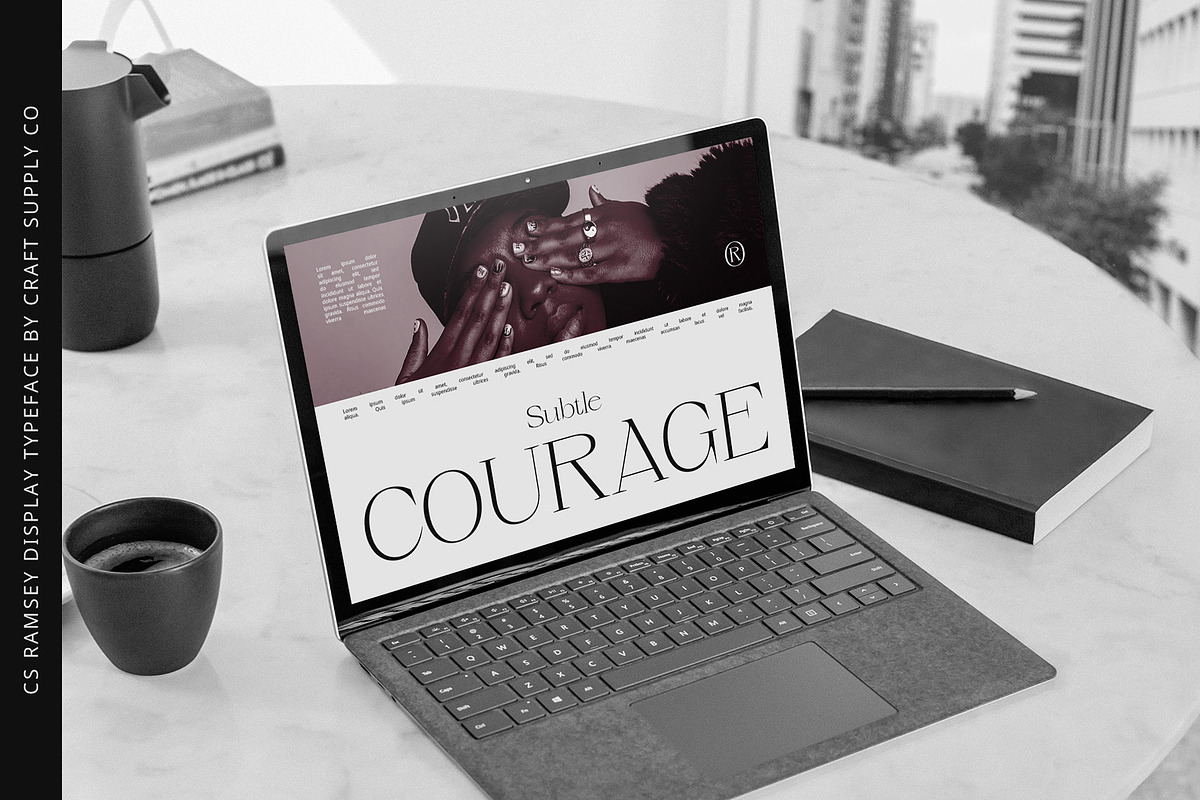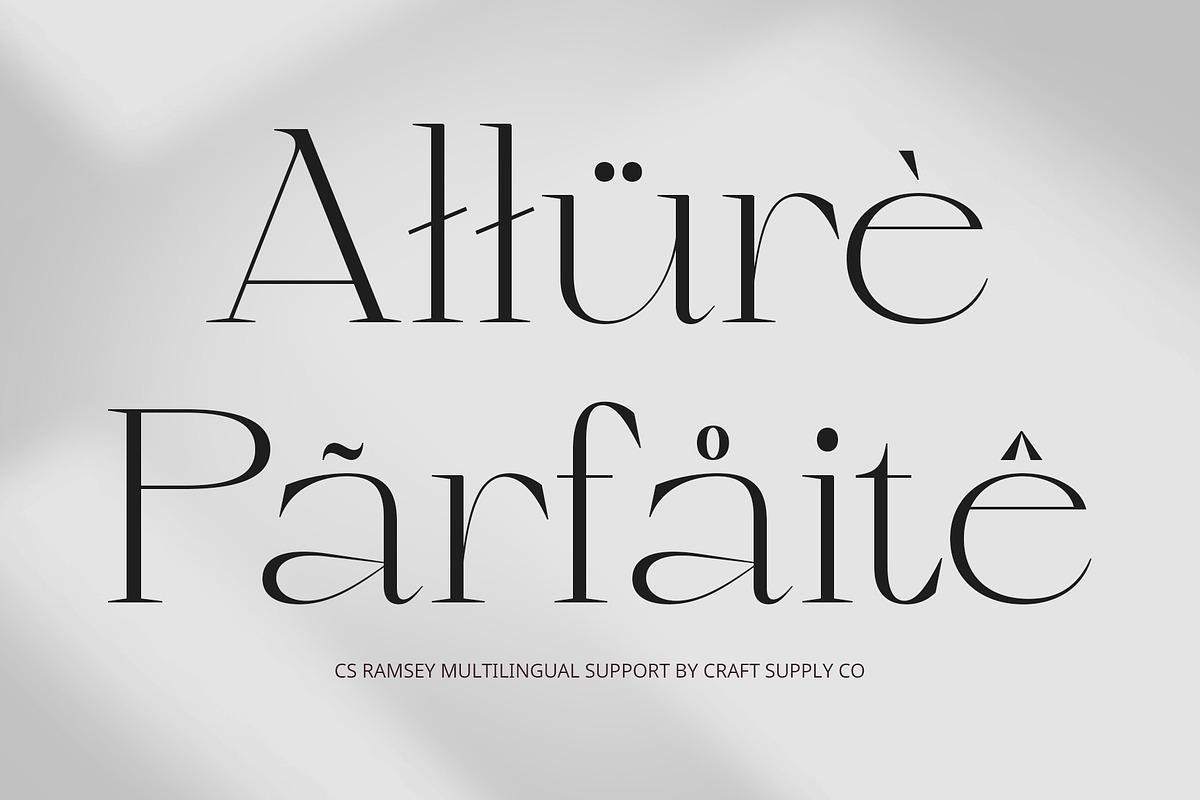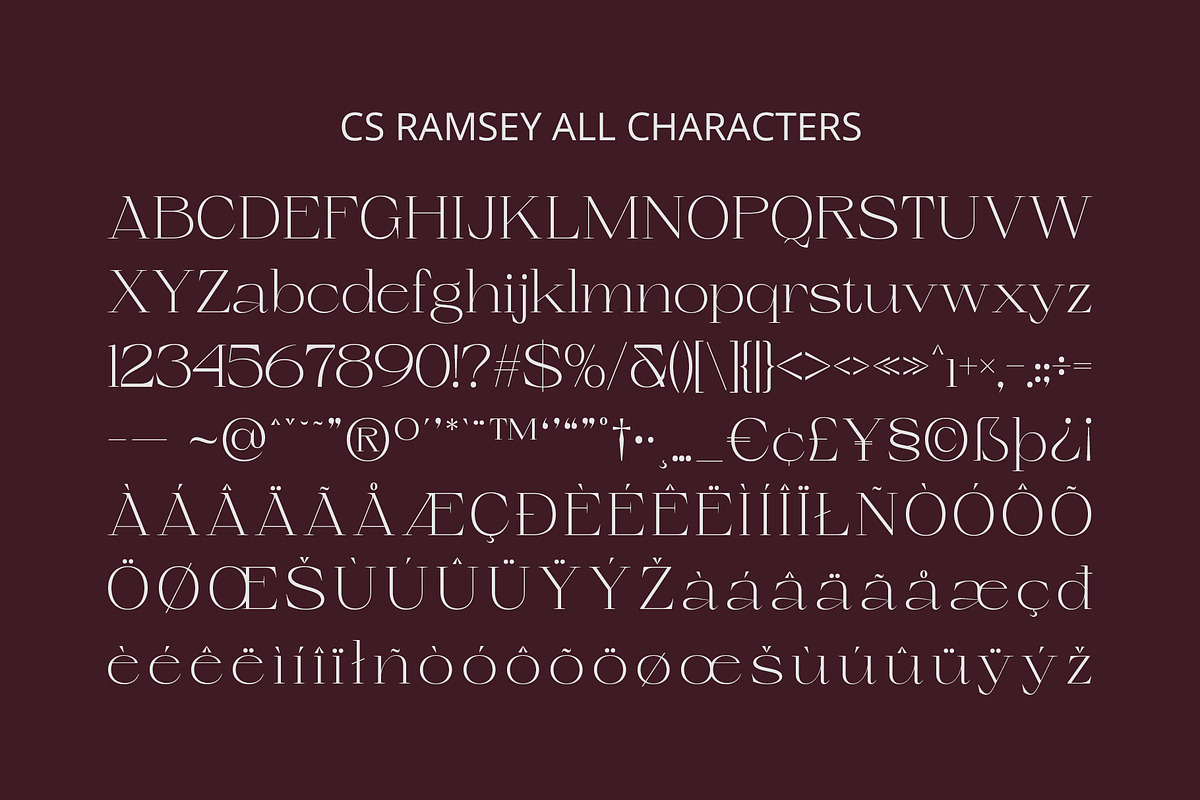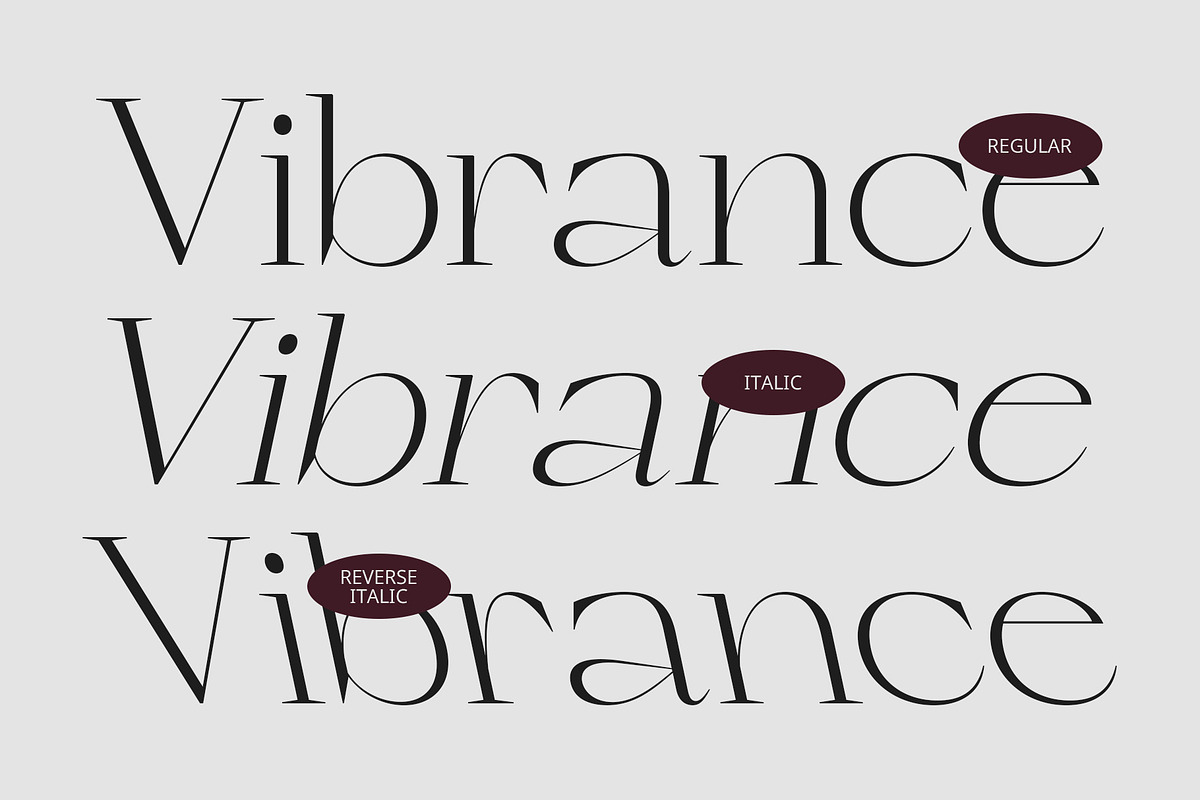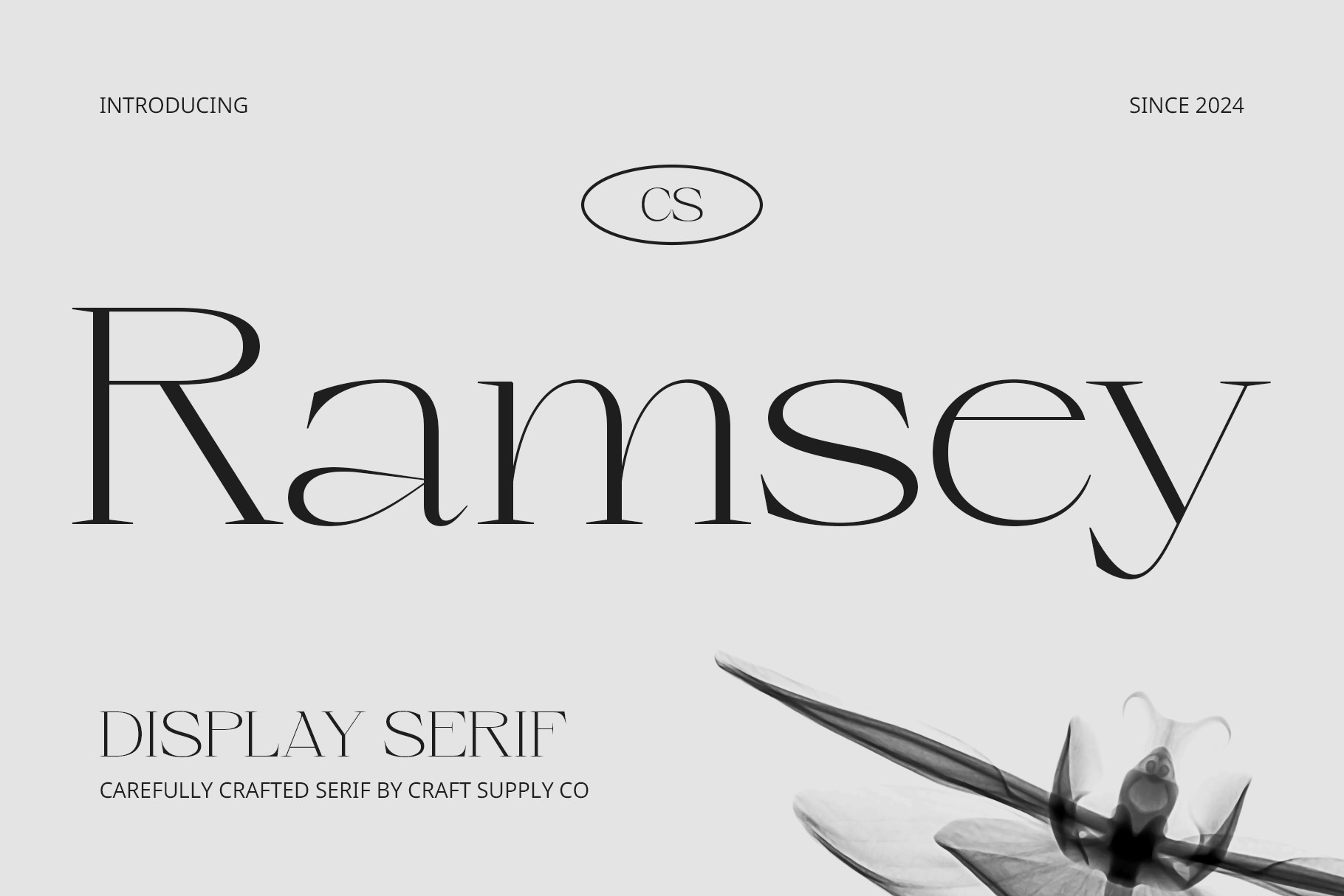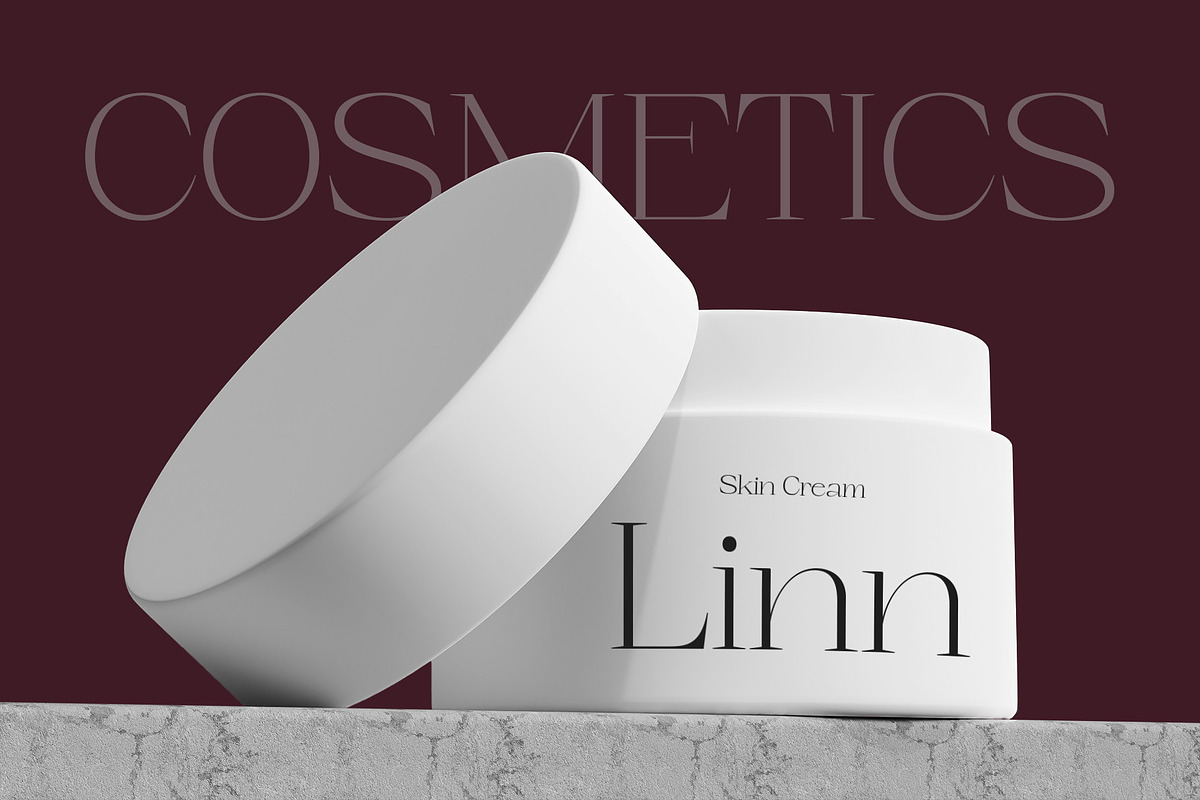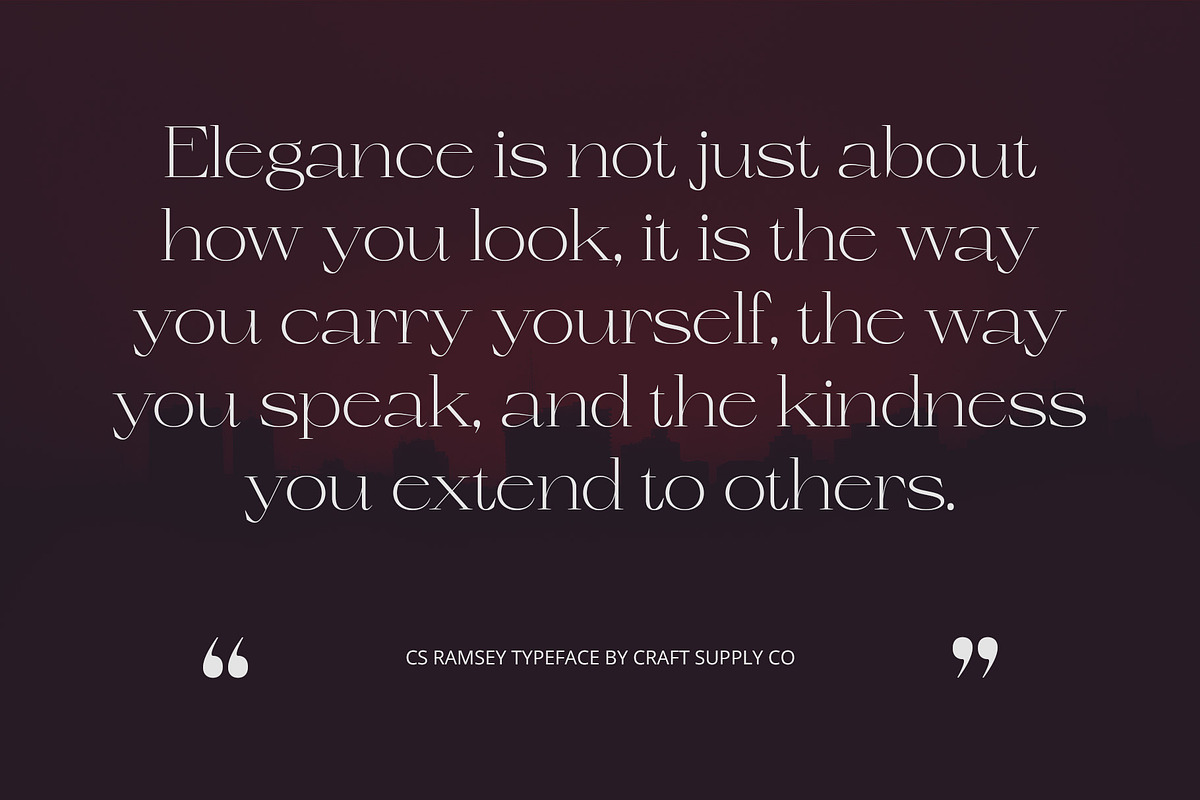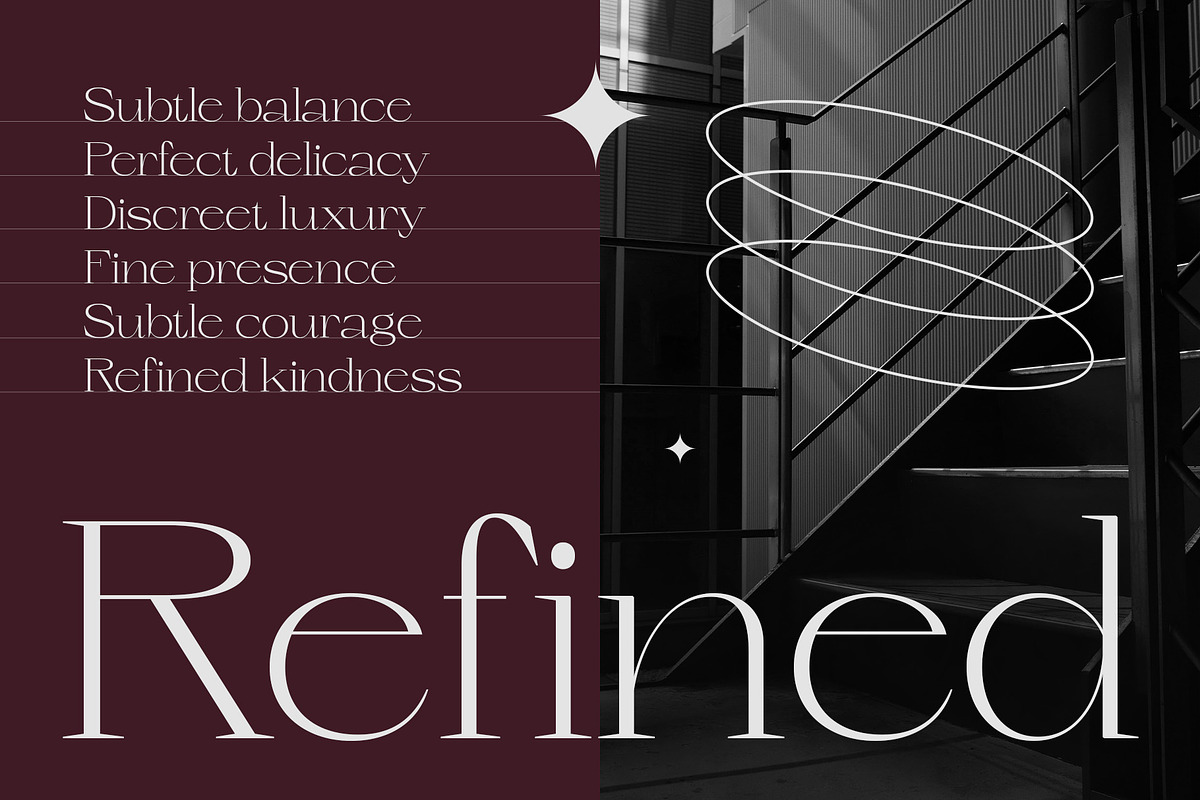
CS Ramsey – Elegant Font
CS Ramsey – Elegant Modern Serif Font
Minimalist Design with Refined Elegance CS Ramsey is a modern serif font that embodies minimalist design principles, featuring thin, delicate lines and a well-structured form. Its clean and precise design brings an air of sophistication and elegance to any project. Perfect for professional and high-end applications, this font exudes luxury and refinement, making it the ideal choice for brands and designs that want to convey a sleek, modern impression with a touch of timeless class. Whether for editorial, corporate, or luxury branding, CS Ramsey’s understated beauty ensures that it makes a lasting impact.
Perfect for Professional and High-End Branding Designed with an emphasis on readability and clarity, CS Ramsey offers an effortless elegance that works seamlessly across various branding materials. Its minimalist aesthetic makes it suitable for high-end logos, marketing collateral, and premium packaging. Whether you are crafting a corporate identity, designing a professional website, or creating luxury brochures, CS Ramsey ensures your brand communicates sophistication and strength.
Ideal for Editorial and Corporate Designs CS Ramsey’s clean lines and well-balanced proportions make it an excellent choice for editorial designs, such as magazine layouts, annual reports, and business publications. Its elegant form enhances the readability of body text while adding a refined touch to headings and titles.
- CS Ramsey Regular
- CS Ramsey Italic
- CS Ramsey Reverse Italic